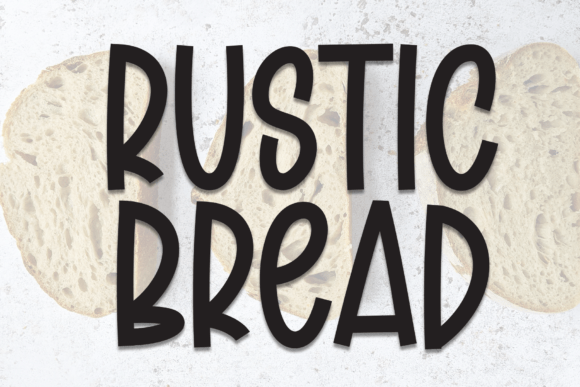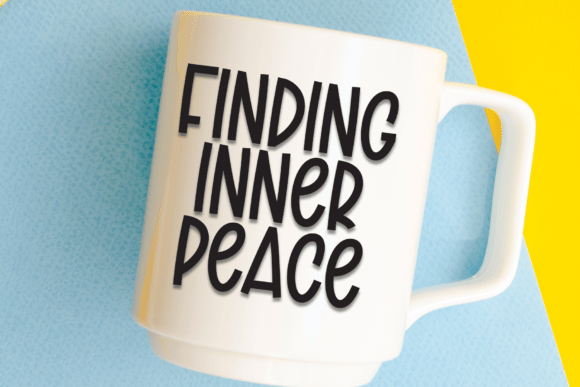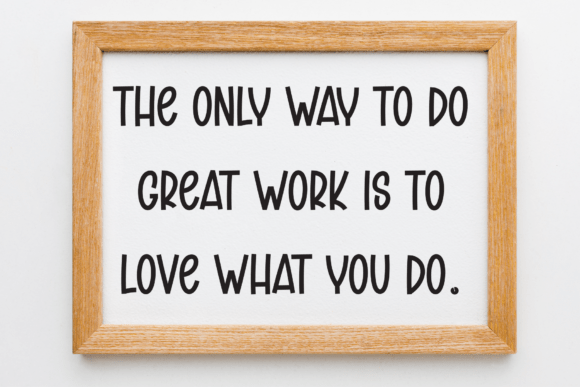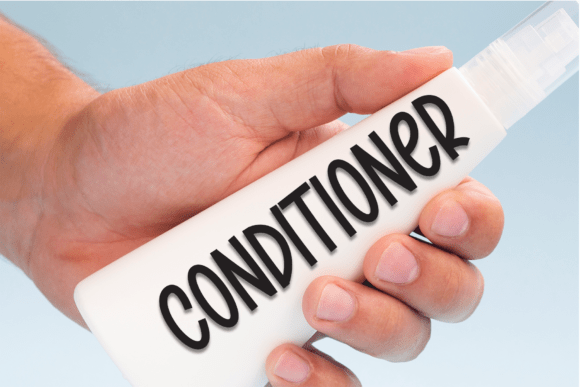
Rustic Bread Font
About the Rustic Bread Font
From logos to headlines, the Rustic Bread Font is the perfect choice for making a lasting impression. Rustic Bread is a casual and neat display font that radiates a fresh, friendly vibe. With clean lines and a relaxed structure, it’s perfect for packaging, posters, and social media graphics. The approachable design adds charm and clarity to projects while maintaining a polished appearance.
Rustic Bread excels in headlines, short slogans, and branding applications where a friendly yet sophisticated aesthetic is desired. It’s ideal for food and beverage brands, artisan crafts, and projects emphasizing natural or handcrafted elements. Avoid using it for large blocks of body text or UI elements; its display-oriented design isn’t optimized for readability in smaller sizes or extended passages.
Pairing Rustic Bread with a clean sans-serif like Open Sans for body copy creates a balanced contrast, while a delicate script font like Great Vibes can add a touch of elegance for secondary text elements. For a bolder statement, consider pairing it with a geometric sans-serif such as Montserrat.
Its core personality is approachable and friendly, yet refined. The font projects a sense of casual sophistication, making it suitable for brands that value authenticity and quality without being overly formal.
Rustic Bread Font Usage Examples
Rustic Bread Font Example